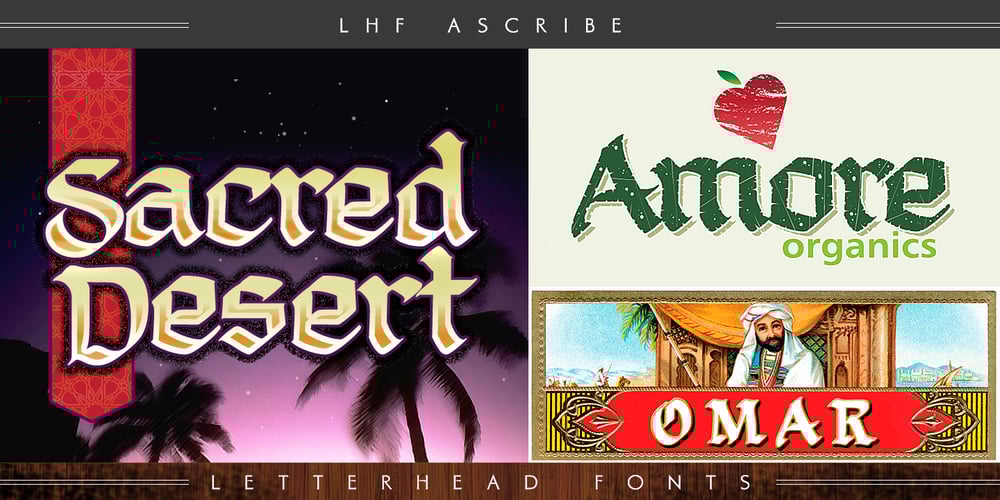
LHF Ascribe
LHF Ascribe font
LHF Ascribe Font Family was designed by David Parr and published by Letterhead Fonts. LHF Ascribe contains 1 styles and family package options. This useful Calligraphic set has an old-world Middle Eastern feel, but with enough simplicity to use in modern designs. LHF Ascribe has the appearance found on ancient sacred writings, which makes it perfect for scroll text. Well balanced letters make for readable blocks of copy or headings. Set includes Regular & Distressed versions, and bonus alternates.